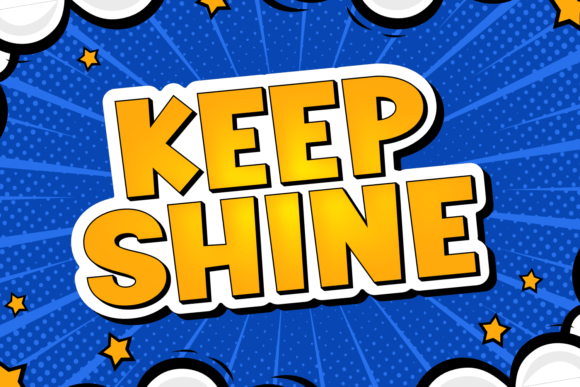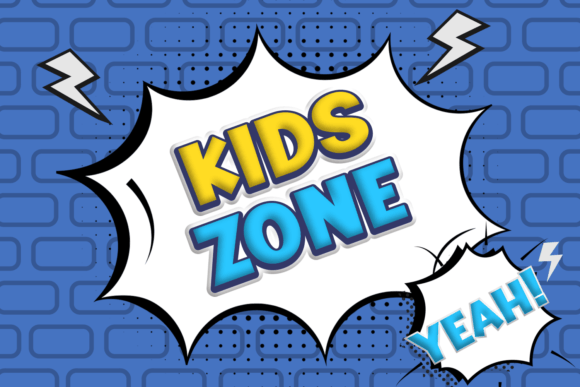
Introducing Comiko Superb Font: The Ultimate Display Font for Creative Projects
Are you looking for a font that can add a touch of excitement and energy to your designs? Look no further than Comiko Superb Font, a thick and eye-catching display font that’s perfect for a wide range of creative projects. In this article, we’ll explore the features and benefits of Comiko Superb, and show you how to use it to unleash your creativity and create captivating typography.
What is Comiko Superb Font?
Comiko Superb is a bold and attention-grabbing display font that’s designed to make a statement. Its thick lines and unique lettering style make it perfect for use on book covers, product packaging, advertising materials, posters, kids’ t-shirts, apps, games, and more. Whether you’re a designer, crafty DIY enthusiast, or simply someone who loves to create, Comiko Superb is the perfect font to add a touch of personality and flair to your projects.
Key Features of Comiko Superb Font
- Thick and eye-catching design: Comiko Superb is a bold font that’s designed to grab attention and make a statement.
- Unique lettering style: The font’s unique lettering style sets it apart from other display fonts and makes it perfect for use on a wide range of projects.
- High-quality design: Comiko Superb is designed with high-quality and precision, ensuring that it looks great in any size or format.
Uses for Comiko Superb Font
Comiko Superb is a versatile font that can be used on a wide range of projects, including:
- Book covers: Add a touch of excitement and energy to your book covers with Comiko Superb.
- Product packaging: Make your product packaging stand out with Comiko Superb’s bold and eye-catching design.
- Advertising materials: Use Comiko Superb to create eye-catching advertising materials that grab attention and drive results.
- Posters: Create stunning posters with Comiko Superb’s unique lettering style and bold design.
- Kids’ t-shirts: Add a touch of fun and personality to kids’ t-shirts with Comiko Superb.
- Apps and games: Use Comiko Superb to create engaging and interactive typography for your apps and games.
Tips for Using Comiko Superb Font
Here are a few tips for using Comiko Superb to create captivating typography:
- Experiment with different colors: Comiko Superb looks great in a wide range of colors, so don’t be afraid to experiment and find the perfect color for your project.
- Play with font sizes: Comiko Superb is a bold font, but you can still create visual interest by playing with different font sizes and styles.
- Combine with other fonts: Comiko Superb can be paired with other fonts to create a unique and interesting typography style.
Comiko Superb Font is a powerful and versatile display font that’s perfect for designers, crafters, and anyone who loves to create. With its thick and eye-catching design, unique lettering style, and high-quality construction, Comiko Superb is the perfect font to add a touch of personality and flair to your projects. Whether you’re working on a book cover, product packaging, advertising materials, or simply a fun DIY project, Comiko Superb is the perfect choice.